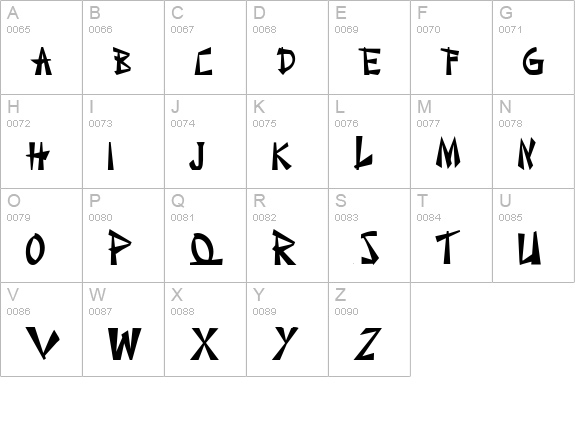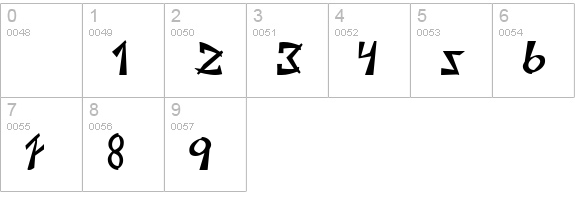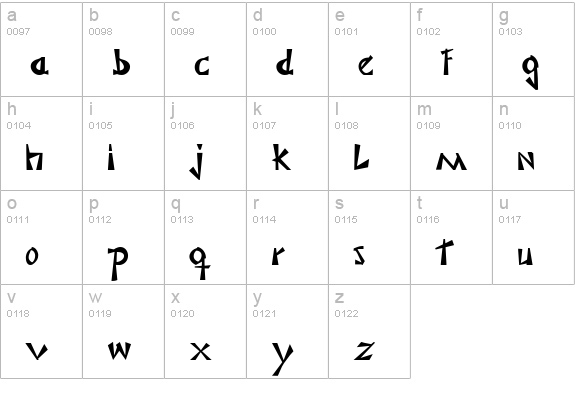
Japonesa Font Details
Introducing Japonesa, a captivating and elegant font that effortlessly combines traditional Japanese calligraphy with a modern twist. This unique typeface embodies the essence of Japanese culture, exuding grace, sophistication, and tranquility in every curve and stroke. Japonesa is meticulously crafted, paying homage to the rich history of Japanese script while embracing contemporary design elements. Its flowing lines and delicate details invite the reader on a visual journey, evoking a sense of harmony and balance. Designed to captivate and inspire, Japonesa is the perfect choice for a wide range of projects. Whether you are creating invitations for a traditional tea ceremony, designing a logo for a high-end sushi restaurant, or simply want to add a touch of elegance to your personal stationery, this font will effortlessly elevate your designs. One of the most remarkable aspects of Japonesa is that it is freely available for download at FontsMarket.com. This means that you can bring the timeless beauty of Japanese calligraphy into your projects without any cost or limitations. Embrace the artistry and heritage of Japan with this stunning font, and let your creativity flourish. With its seamless compatibility across various design software and platforms, Japonesa ensures that you can easily incorporate this font into your projects. Its versatility allows for a wide range of applications, from digital designs to print media, ensuring that your message will be conveyed with the utmost elegance and impact. Download Japonesa from FontsMarket.com today and embark on a typographic journey that seamlessly blends tradition with contemporary design. Let this font transport you to the captivating world of Japanese calligraphy, where each character tells a story and every word becomes a work of art.